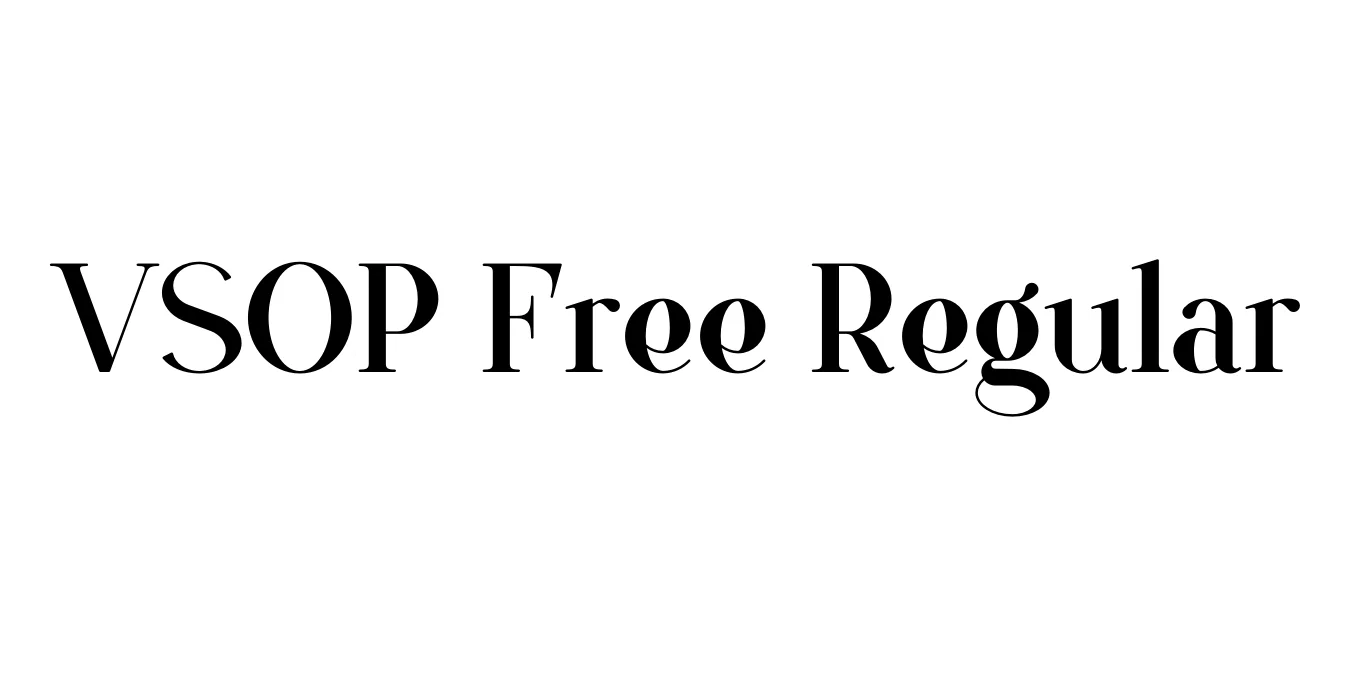
VSOP Free Regular
Designed by Humberto Gillan
VSOP Free Regular is a sophisticated display serif typeface designed with a strong emphasis on elegance and high contrast. Created by Humberto Gillan, this font draws inspiration from vintage luxury aesthetics, particularly the refined typography found on high-end brandy and cognac labels. Its sharp serifs and rhythmic stroke weights make it an ideal choice for projects that require a touch of class and timeless sophistication.
The typeface excels in editorial design and high-fashion branding, offering a balance between classic Roman structures and modern decorative flair. While the VSOP family includes various weights, the regular version remains a standout for its readability and distinctive character. It has become a popular choice among designers looking to evoke a sense of heritage and premium quality in their visual identity projects.
VSOP Free Regular Best Uses
Perfect for luxury goods and high-end liquor labels.
Excellent for magazine headings and fashion layouts.
Ideal for creating sophisticated and memorable brand marks.
Adds a refined touch to formal event stationery.